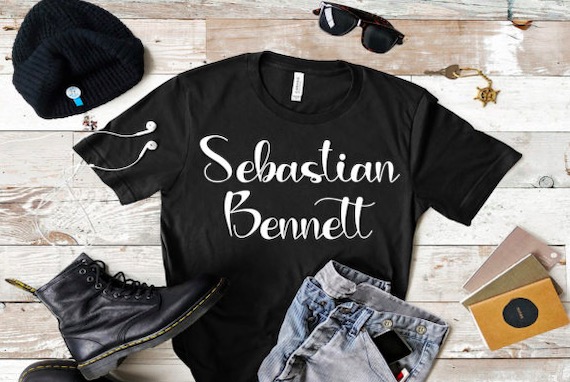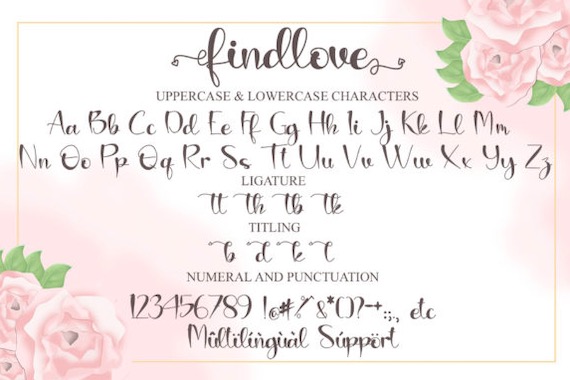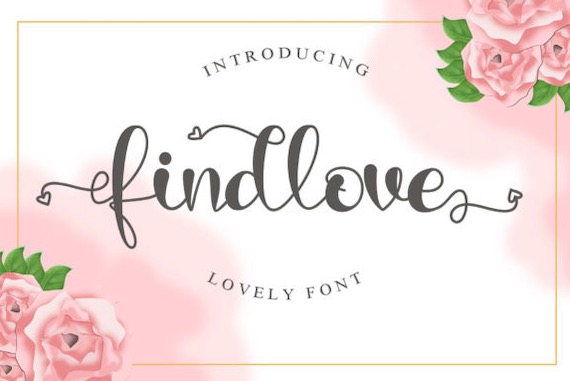
Findlove Font is a modern handwritten script typeface that was created and shared by Jonathan Studio. It has a writing style that looks very stylish and attractive along with an authentic calligraphy look. Findlove can be applied to wedding invitations, logos, business cards, branding, apparel, and others. This font is PUA encoded which means you can access all of the glyphs and swashes with ease!
Findlove Calligraphy Script Font